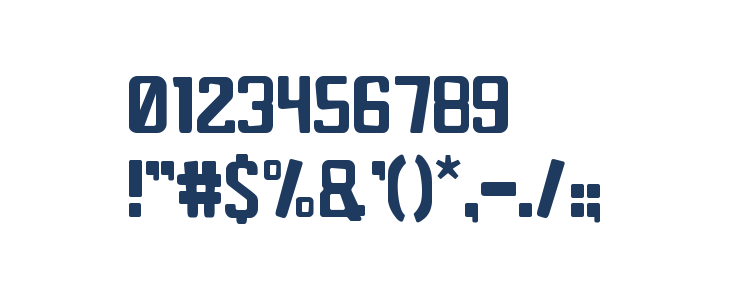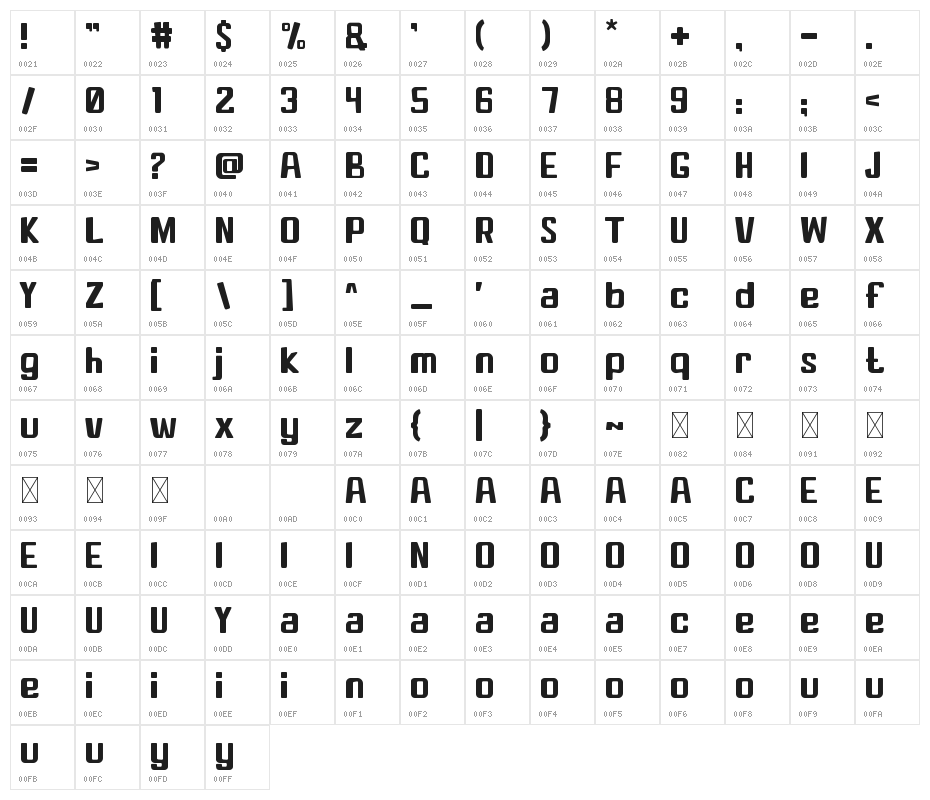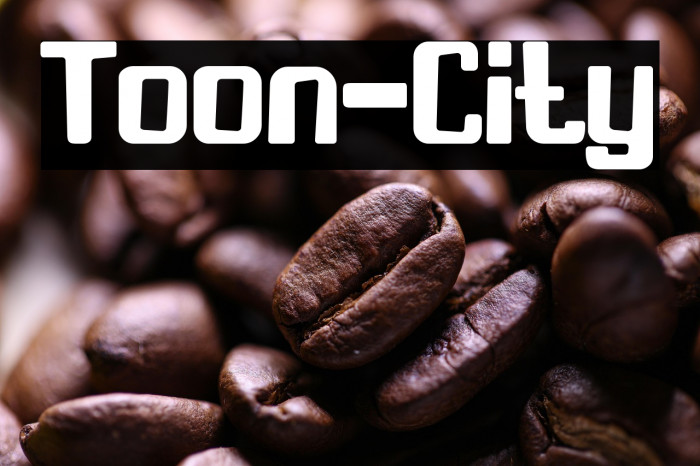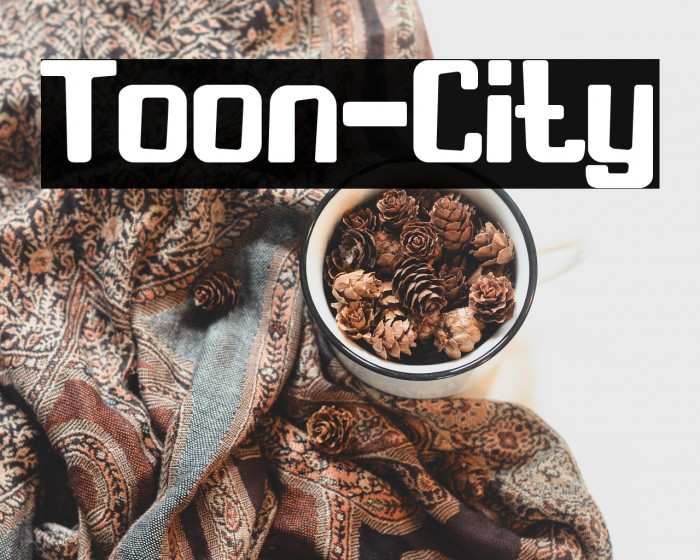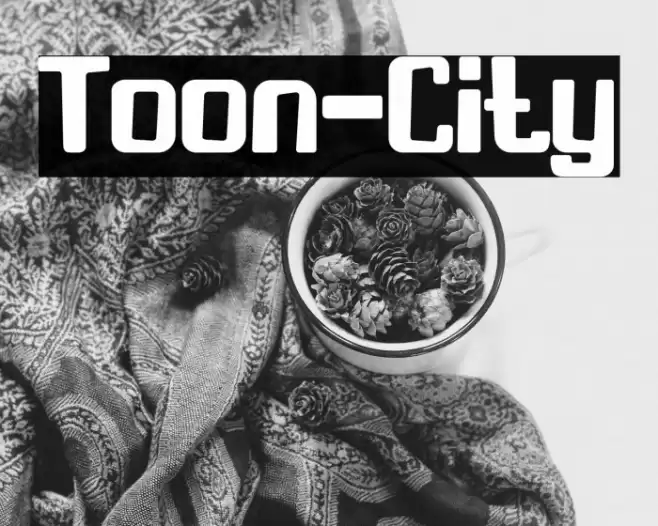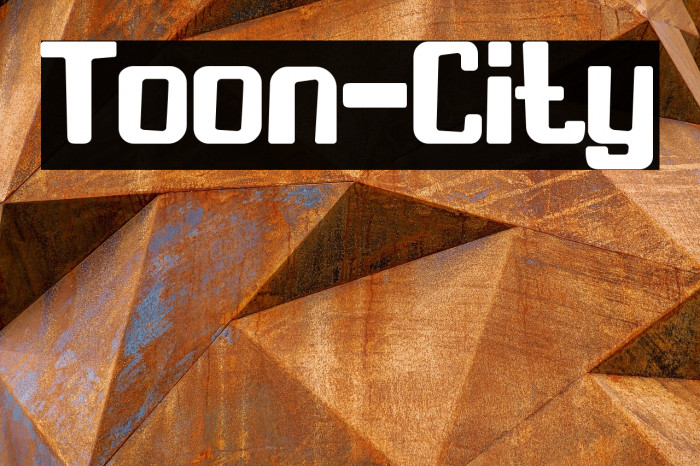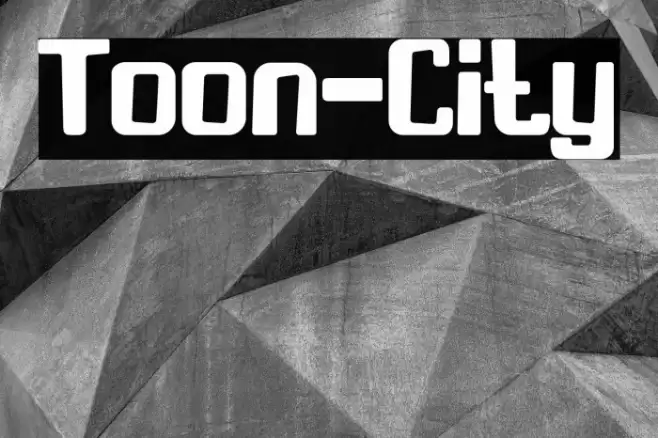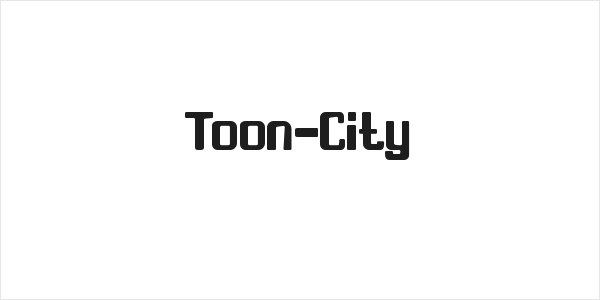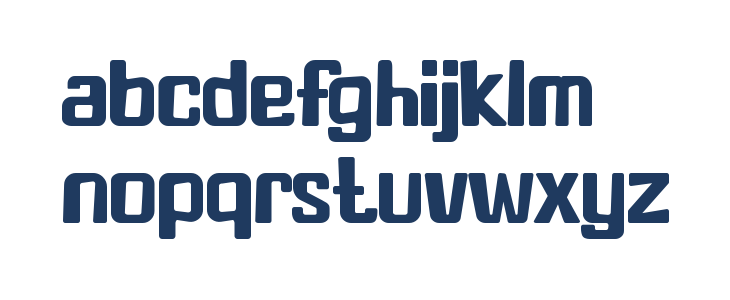
Toon-City Font
Toon-City Description
This playful and bold font features a cartoonish style with rounded edges and a slightly condensed form. The characters are thick and uniform, giving a strong presence on the page. The uppercase and lowercase letters maintain a consistent height, creating a cohesive look. Numbers and special characters are designed with the same playful aesthetic, making them ideal for creative projects. The font's unique style is both approachable and eye-catching, perfect for capturing attention in a fun and engaging way.
| Overall Style | Playful, Cartoonish |
| Proposed Projects | Ideal for children's books, comic strips, playful branding, and eye-catching headlines. |